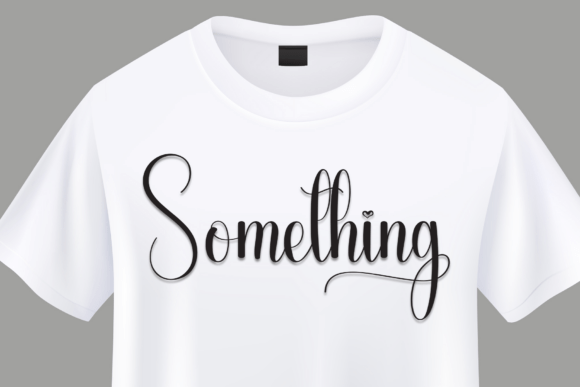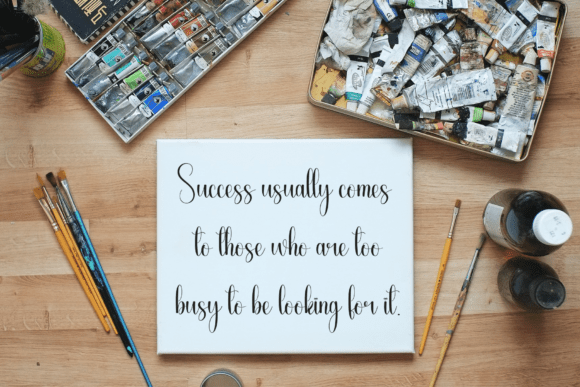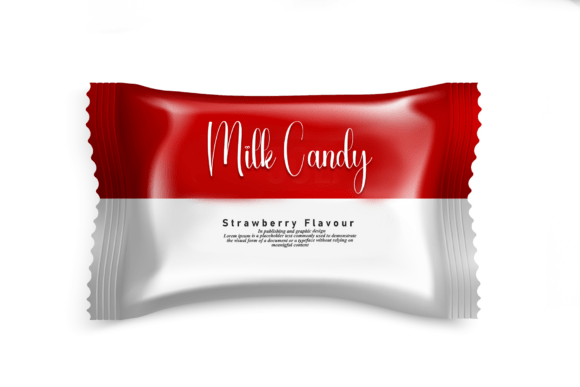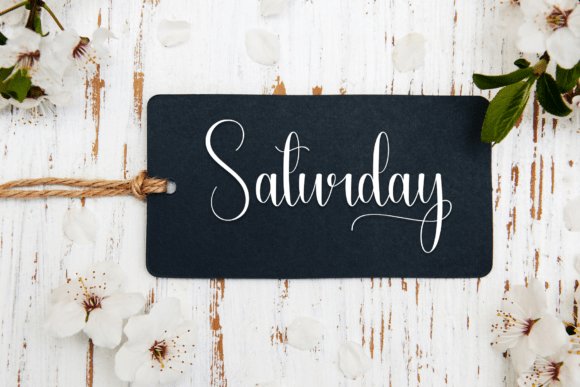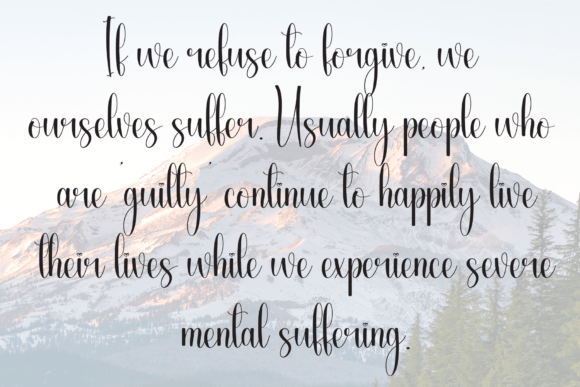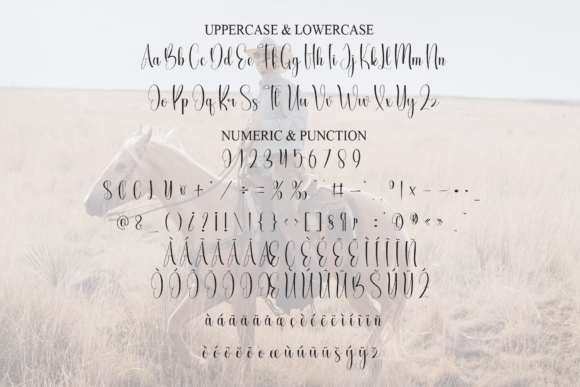
An Honest Review: What I Love (and What to Watch Out For)
- ✅ Fluid strokes and charming curves that add a personal touch to any design
- ✅ Perfect blend of modern elegance and playfulness
- ✅ Works beautifully for logos, packaging, and invitations
- ✅ Easy to read and highly legible, even at smaller sizes
- ⚠️ Some letters may require manual kerning for optimal spacing
- ⚠️ Limited availability of Cyrillic or non-Latin characters
- Experiment with OpenType features, such as stylistic alternates, to add visual interest
The Story Behind Cowboy: Designer Inspiration
Cowboy was designed with the goal of creating a font that blends modern sophistication with a playful, personal touch. The designer aimed to craft a typeface that would feel both elegant and approachable, making it perfect for a wide range of creative projects. While the designer’s exact inspiration may be unknown, it’s clear that Cowboy was created with love and attention to detail.
Q: What type of projects is Cowboy best suited for?
A: Cowboy is ideal for logos, packaging, invitations, and any design project that requires a personal, sophisticated touch.
Q: Does Cowboy support OpenType features?
A: Yes, Cowboy includes OpenType features like stylistic alternates, ligatures, and glyphs, which can be accessed in compatible design software.
Q: Is Cowboy a highly legible font?
A: Yes, Cowboy is designed to be highly legible, even at smaller sizes, making it perfect for body text and captions.